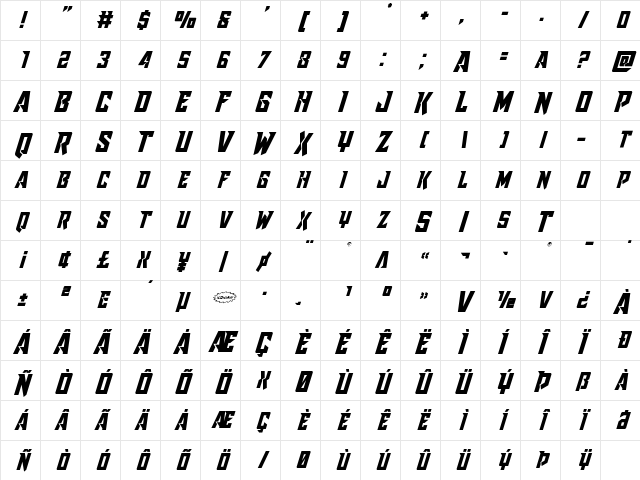
Complete Raider Crusader Title Regular glyph index. Displaying only characters natively supported by Raider Crusader Title Regular font.
Raider Crusader Title is a composed and adaptable typeface that performs quietly and consistently across a wide range of design contexts.